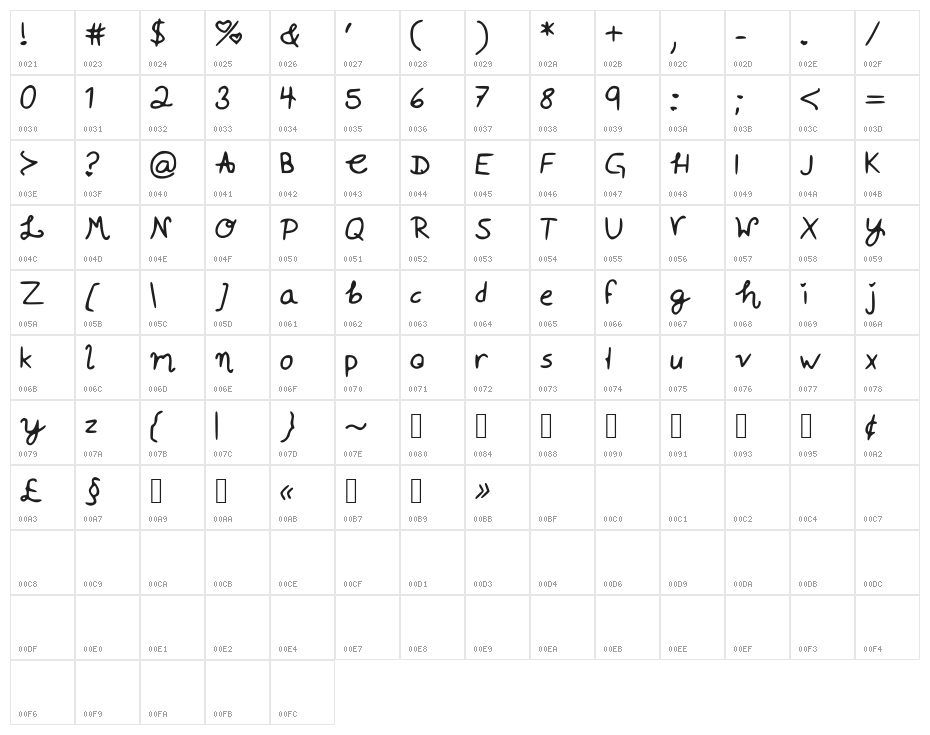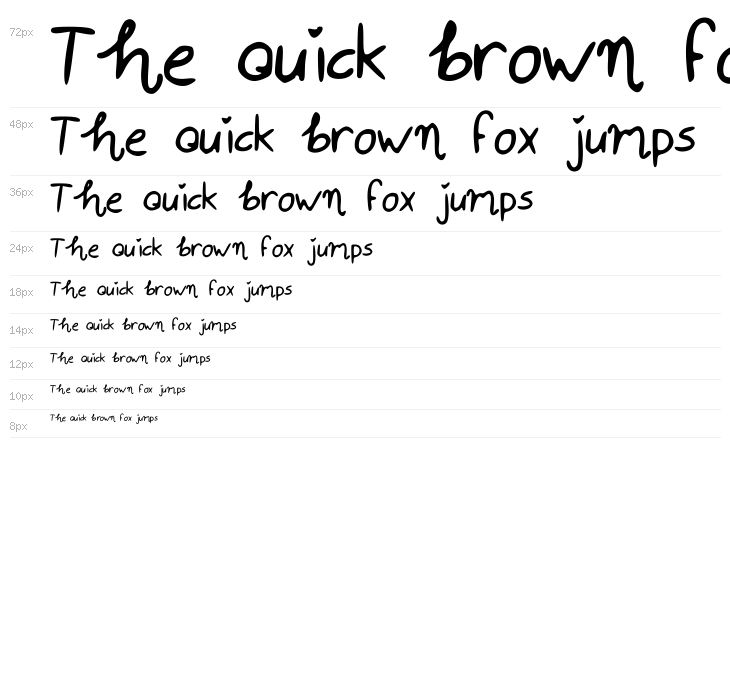
Mistie Font
Mistie Description
This playful and whimsical font features a handwritten style with a casual and friendly appearance. The letters are characterized by their uneven strokes and slightly irregular shapes, giving it a lively and dynamic feel. The uppercase letters are bold and prominent, while the lowercase letters maintain a consistent flow, enhancing the font's informal charm. The numbers and special characters are crafted with the same playful spirit, making them suitable for creative and fun projects. The overall design is approachable and versatile, perfect for adding a personal touch to any design.
| Overall Style | Casual, Playful |
| Use Case | Headlines, Logos, Informal Text |
| Proposed Projects | Ideal for greeting cards, children's books, playful branding, and casual invitations. |